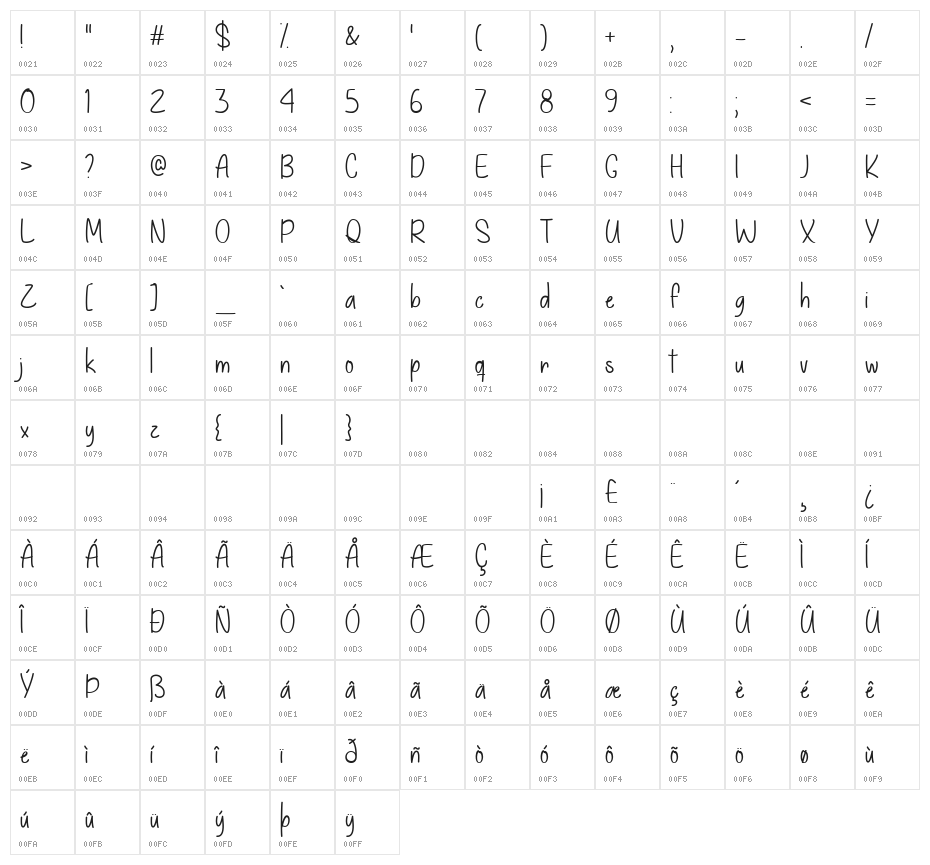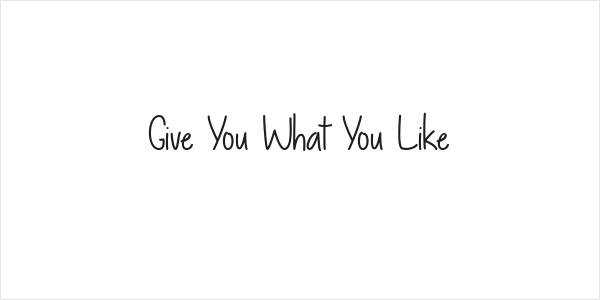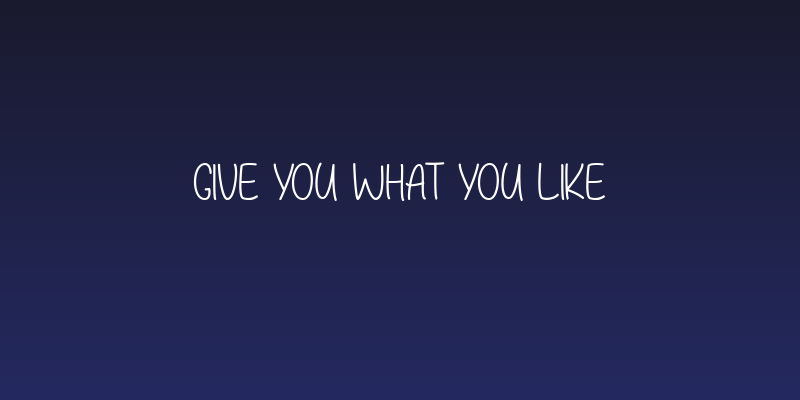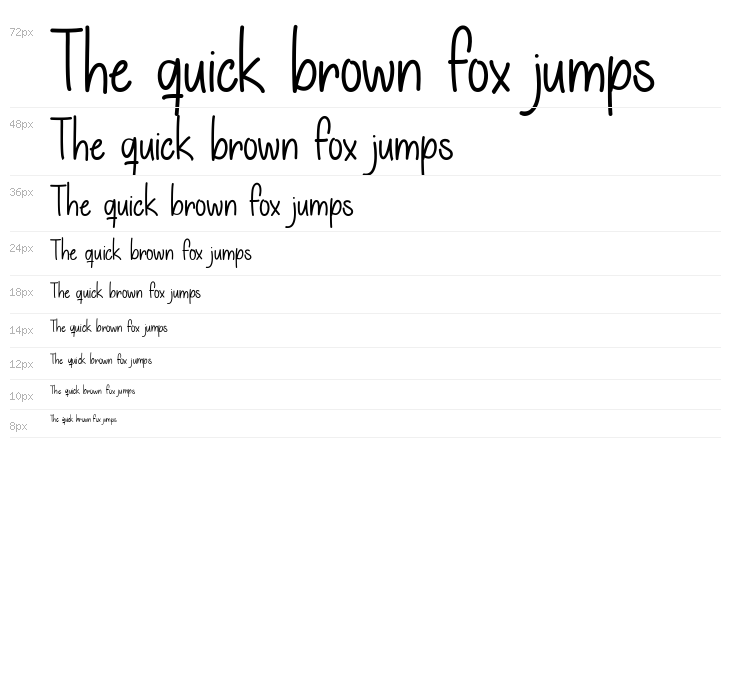
Give You What You Like Font
Give You What You Like Description
This playful and casual font features a handwritten style with smooth, rounded edges and a friendly appearance. The letters are slightly elongated, giving a whimsical touch to the overall design. The uppercase and lowercase characters maintain a consistent flow, while the numerals and special characters blend seamlessly with the alphabet. Its informal nature makes it ideal for projects that require a personal or approachable feel. The font's legibility is enhanced by its clear character shapes and moderate spacing, making it suitable for various creative applications.
| Use Case | Logos, Headlines, Informal Text |
| Proposed Projects | Ideal for greeting cards, children's books, playful branding, and social media graphics. |